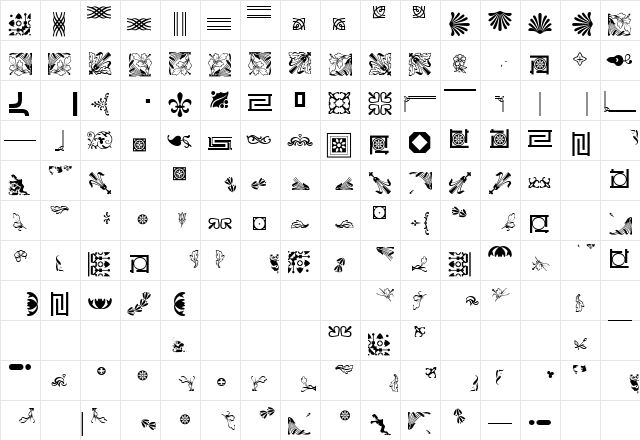
JournalDingbatsTwoSSi Regular
Design Context for JournalDingbatsTwoSSi Typeface
JournalDingbatsTwoSSi is a composed and adaptable typeface that performs quietly and consistently across a wide range of design contexts.